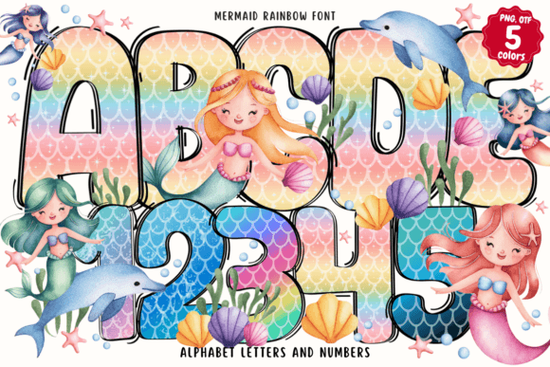
If you're looking for a playful, eye-catching typeface that brings whimsy and color to your creative projects, the Mermaid Rainbow Font might be just what you need. Designed with flowing letterforms and embedded rainbow hues, this font captures the magic of under-the-sea fantasy while staying versatile enough for everyday crafting and design work.
Unlike standard fonts, the Mermaid Rainbow Font is a color font (OpenType-SVG), meaning each character comes pre-filled with vibrant gradients and shimmering tones no extra layering or coloring required. That makes it especially useful for designers who want to add instant visual interest without spending hours on manual effects.
What kinds of projects work best with this font?
This font shines in contexts where imagination and joy are front and center. Think:
- Birthday invitations with ocean or unicorn themes
- Greeting cards for kids or fantasy-loving friends
- Classroom decorations or school event posters
- Print-on-demand merchandise like mugs, T-shirts, or wall art featuring dreamy quotes
- Digital stickers or planner elements for crafters
Because of its bold colors and fluid shapes, it’s not ideal for body text or minimalist designs but as a headline or accent font, it adds personality fast.
How do I make the most of its colorful features?
Since the colors are built into the font file itself, you don’t need to apply fills or gradients manually. Just type your text, and the rainbow effect appears automatically. That saves time and ensures consistency across your design.
A few tips for best results:
- Use larger font sizes (24pt or above) so the color details stay visible.
- Pair it with simple, neutral backgrounds white, light pastels, or soft blues let the colors pop without clashing.
- Avoid combining it with other highly decorative fonts; let it stand out as the focal point.
- For print projects, confirm your printer supports full-color vector output to preserve the gradients accurately.
Remember: because it’s a stylized display font, readability drops at small sizes or in dense paragraphs. Stick to short phrases, names, or titles for clarity.
Who should consider using this font?
Small business owners creating custom party supplies, Etsy sellers designing printable kits, teachers making engaging classroom materials, and hobbyists working on scrapbooks or DIY gifts will all find practical uses for it. Even social media creators can use it to generate standout quote graphics or story overlays that feel fresh and youthful.
It’s especially helpful if you’re not confident with advanced illustration tools this font gives you professional-looking color effects with zero extra effort.
Quick checklist before you start:
- Test the font at your intended size to ensure legibility.
- Pair with clean, simple layouts to avoid visual overload.
With its blend of fantasy charm and ready-to-use color, the Mermaid Rainbow Font offers a low-effort way to inject delight into your next creative project just type, and let the magic flow.